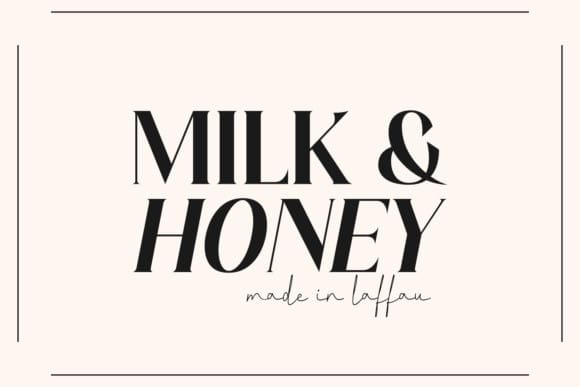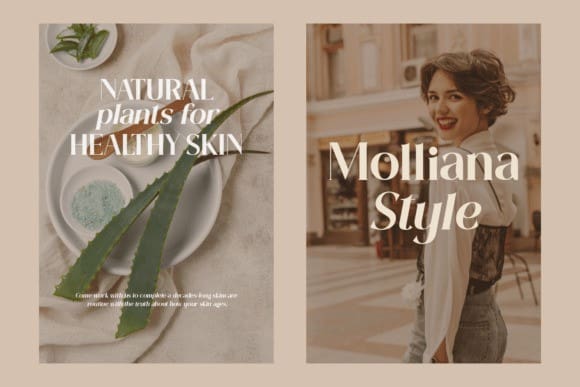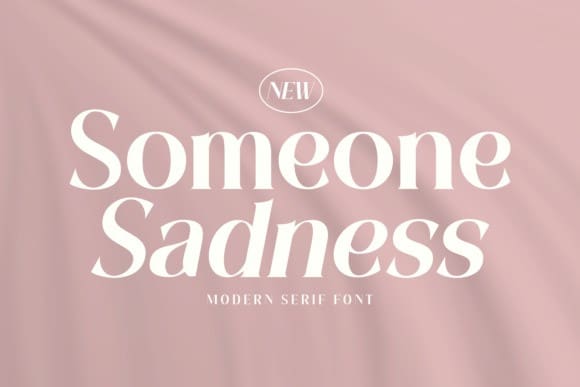
Someone Sadness Font
Someone Sadness Font is a contemporary serif font that combines timeless elegance with a touch of melancholy. With its clean lines and subtle curves, this typeface strikes a delicate balance between modern sophistication and a hint of emotional depth. The serifs exude a sense of quiet introspection, making Someone Sadness a unique choice for projects seeking a blend of classic style and a touch of nuanced emotion.